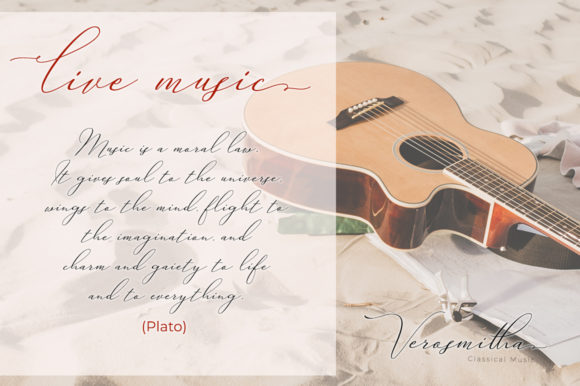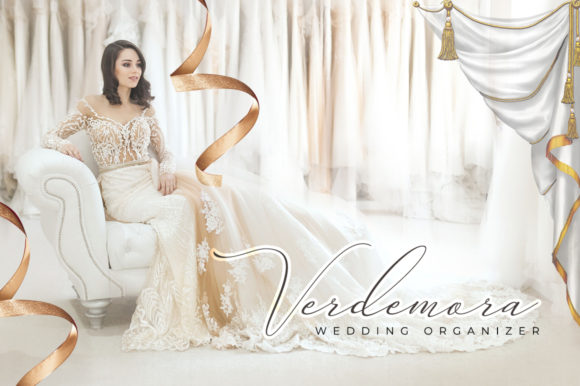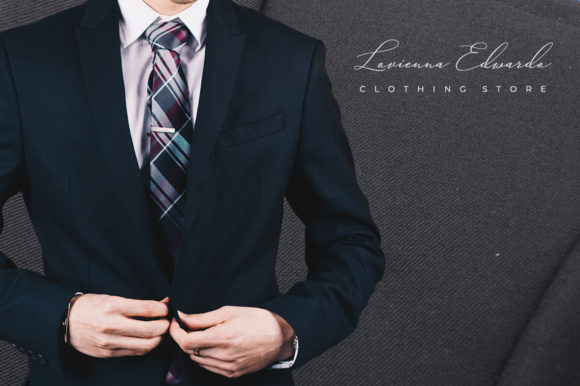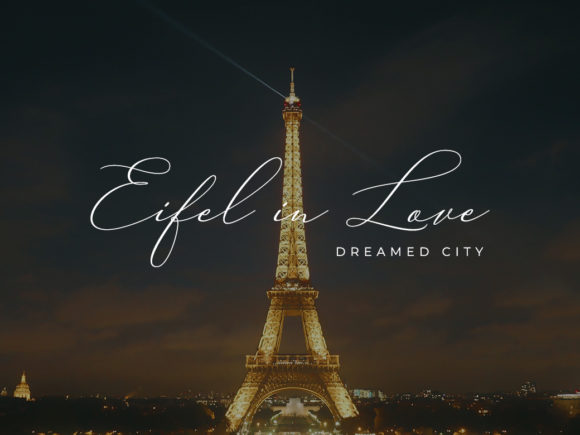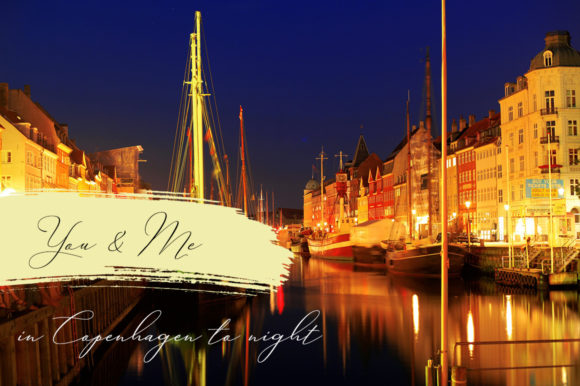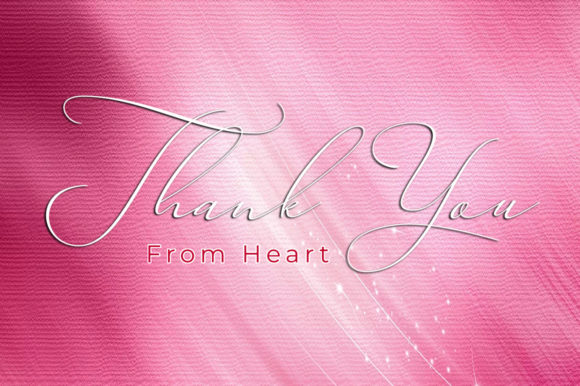
Introduction to Lovento Font
Imagine you’re brainstorming ideas for a new design project, and you stumble upon a font that instantly captures the essence of your creative vision. For many designers, this moment is pure magic. It’s the spark that sets their imagination ablaze, guiding them towards a unique visual identity that resonates with their audience.
For those who’ve experienced this thrill, we’re excited to introduce the Lovento Font – a high-quality, decorative signature font that’s sure to elevate your creative project. With its beautiful, handwritten feel, this font is a game-changer for designers seeking to add a personal touch to their designs.
Key Features of Lovento Font
- Perfect for use in logos, branding, and other design projects where a unique and creative touch is desired.
Honest Review: Lovento Font
- Works well for a variety of design resources, from logos to print materials
- Limited font styles and variations, may not be ideal for complex projects
Overall, I’m impressed with the Lovento Font and would recommend it for simple to moderate-sized creative projects. While it may not be the best choice for complex designs, it’s a great resource to have in your toolkit for quick and easy font needs.
Tips for Getting the Most Out of Lovento Font
Use Lovento Font in combination with other design elements to create a cohesive look and feel. Experiment with different font sizes and styles to add visual interest to your design. Use the font with a transparent background to create a sense of depth and dimensionality.
Lovento Font is ideal for use in creative projects such as branding, marketing materials, and social media graphics. It’s also a great choice for use in presentations, documents, and websites where a high-quality font is needed.